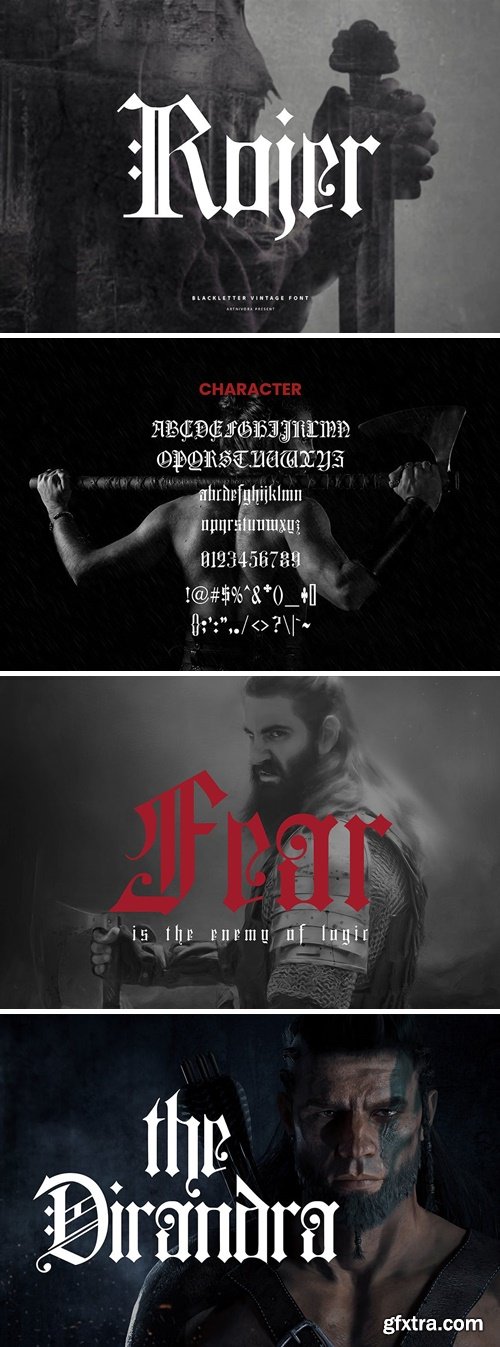
Rojer - Blackletter Font
Introducing Rojer, a simple and blackletter font. So perfect for you who needs a typeface for logo designs, magazine, social media, brochure, and many more.